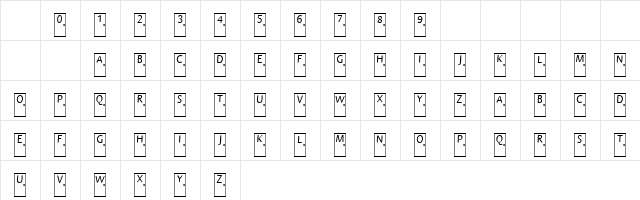
Complete 101! I Choose Door Number... Regular glyph index. Displaying only characters natively supported by 101! I Choose Door Number... Regular font.
101! I Choose Door Number... is a composed and adaptable typeface that performs quietly and consistently across a wide range of design contexts.